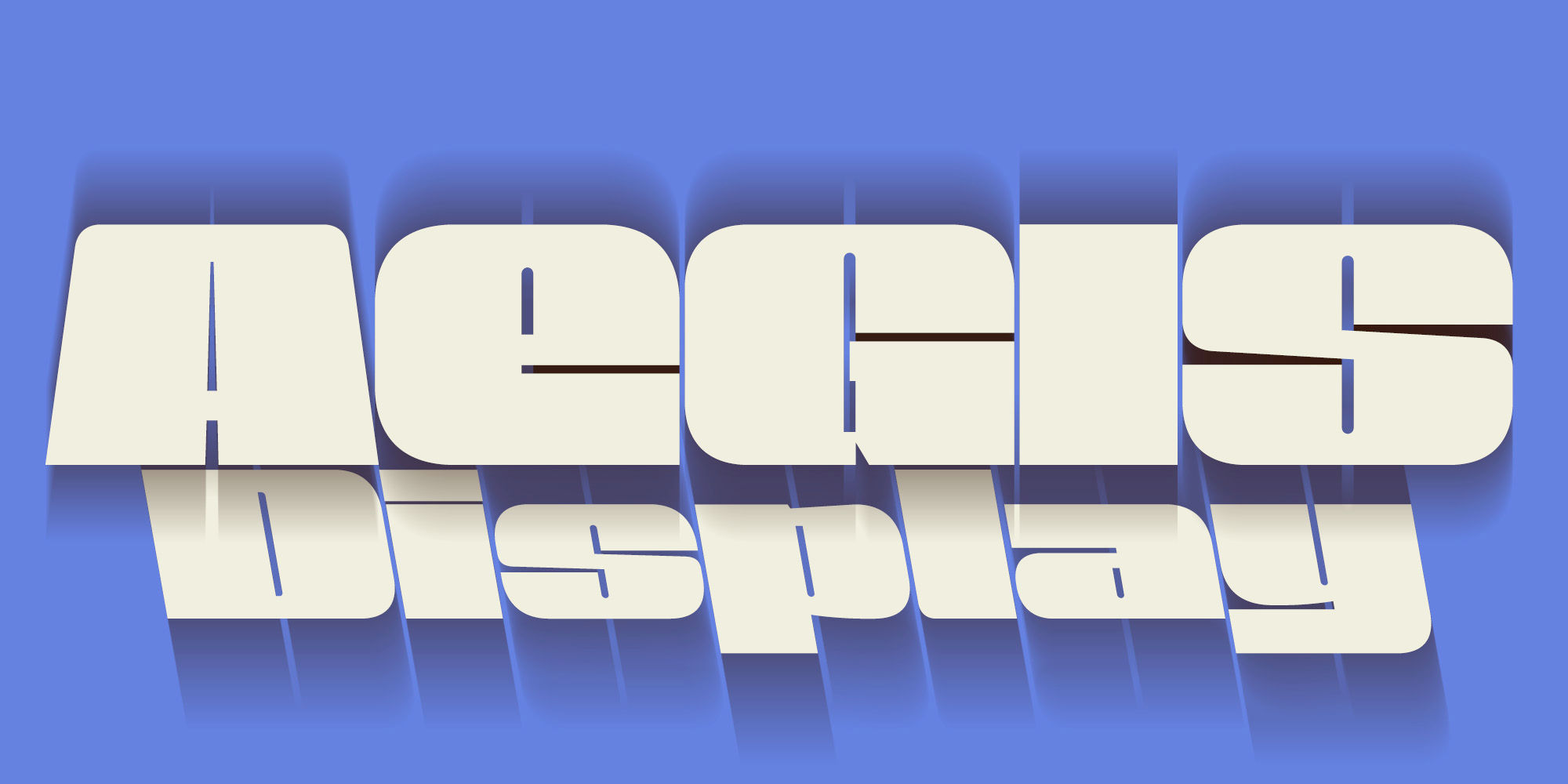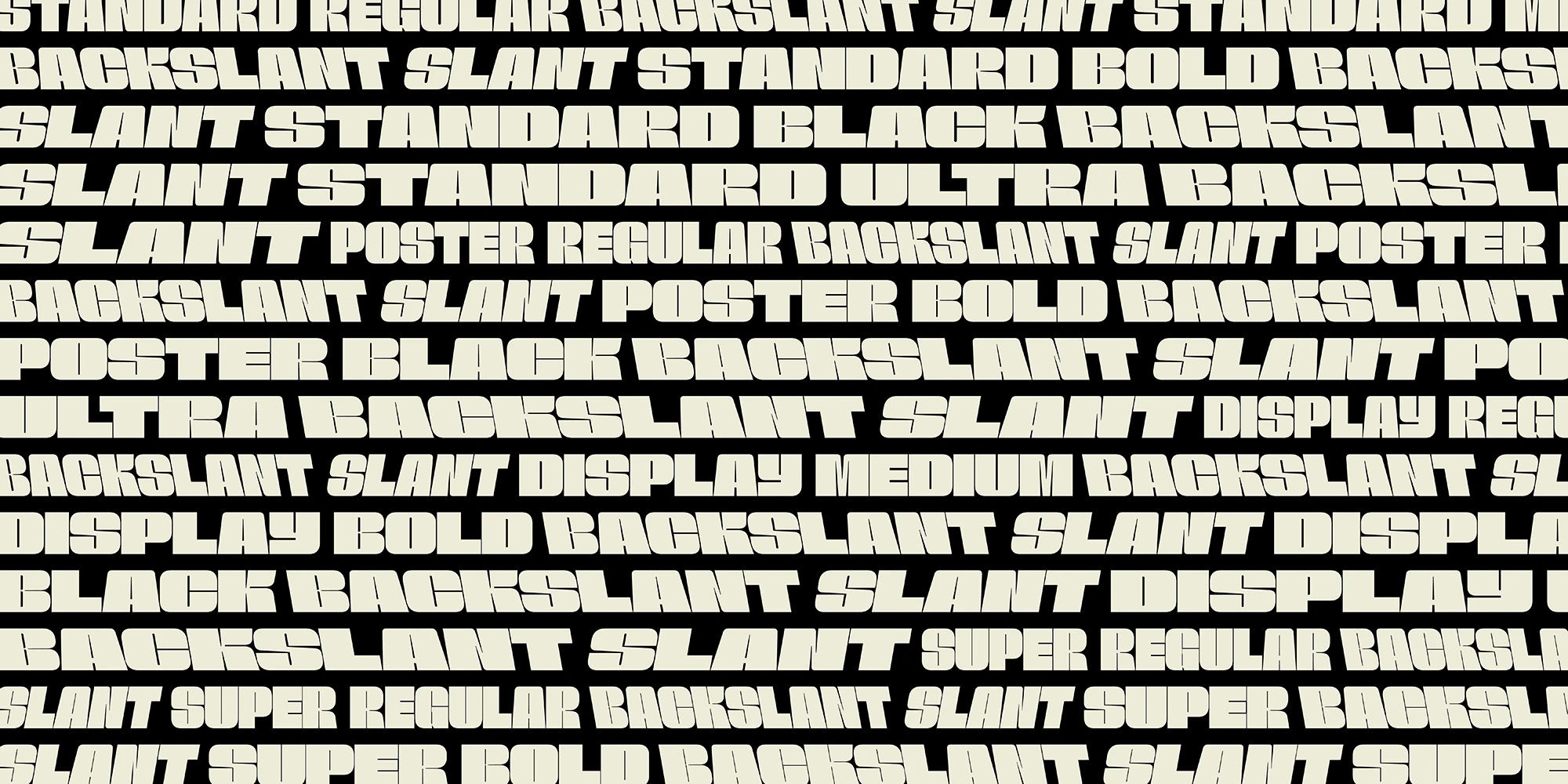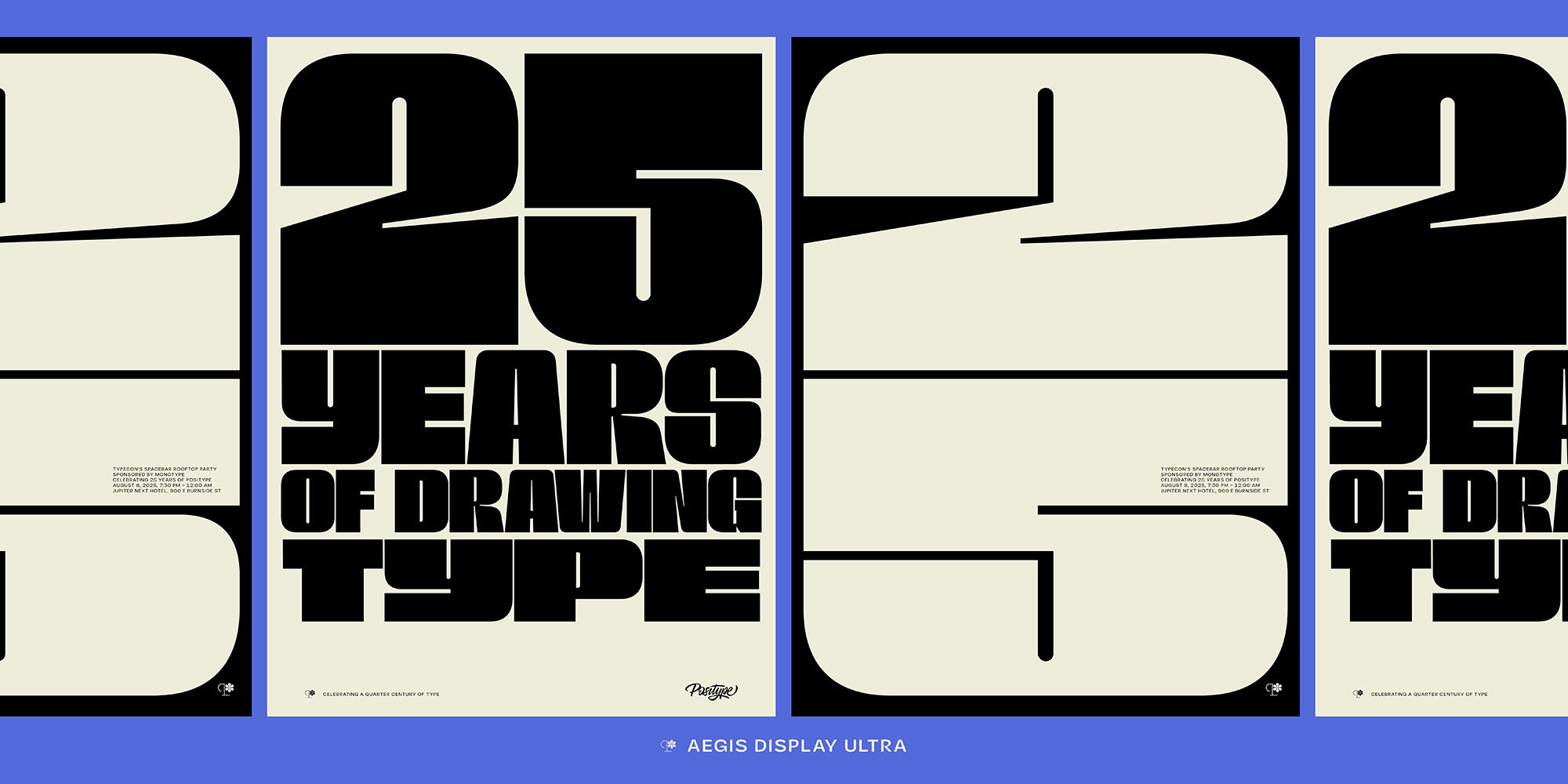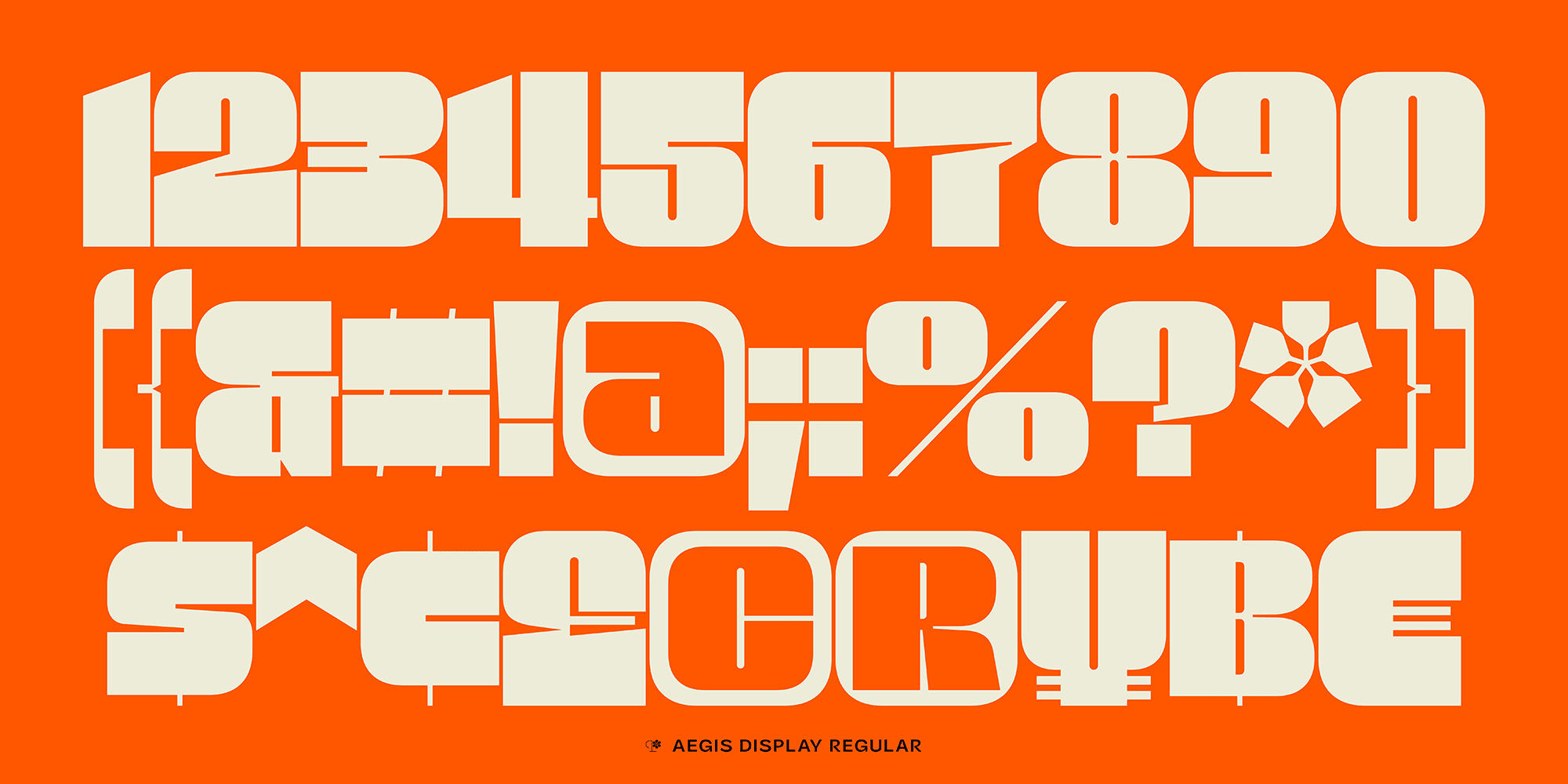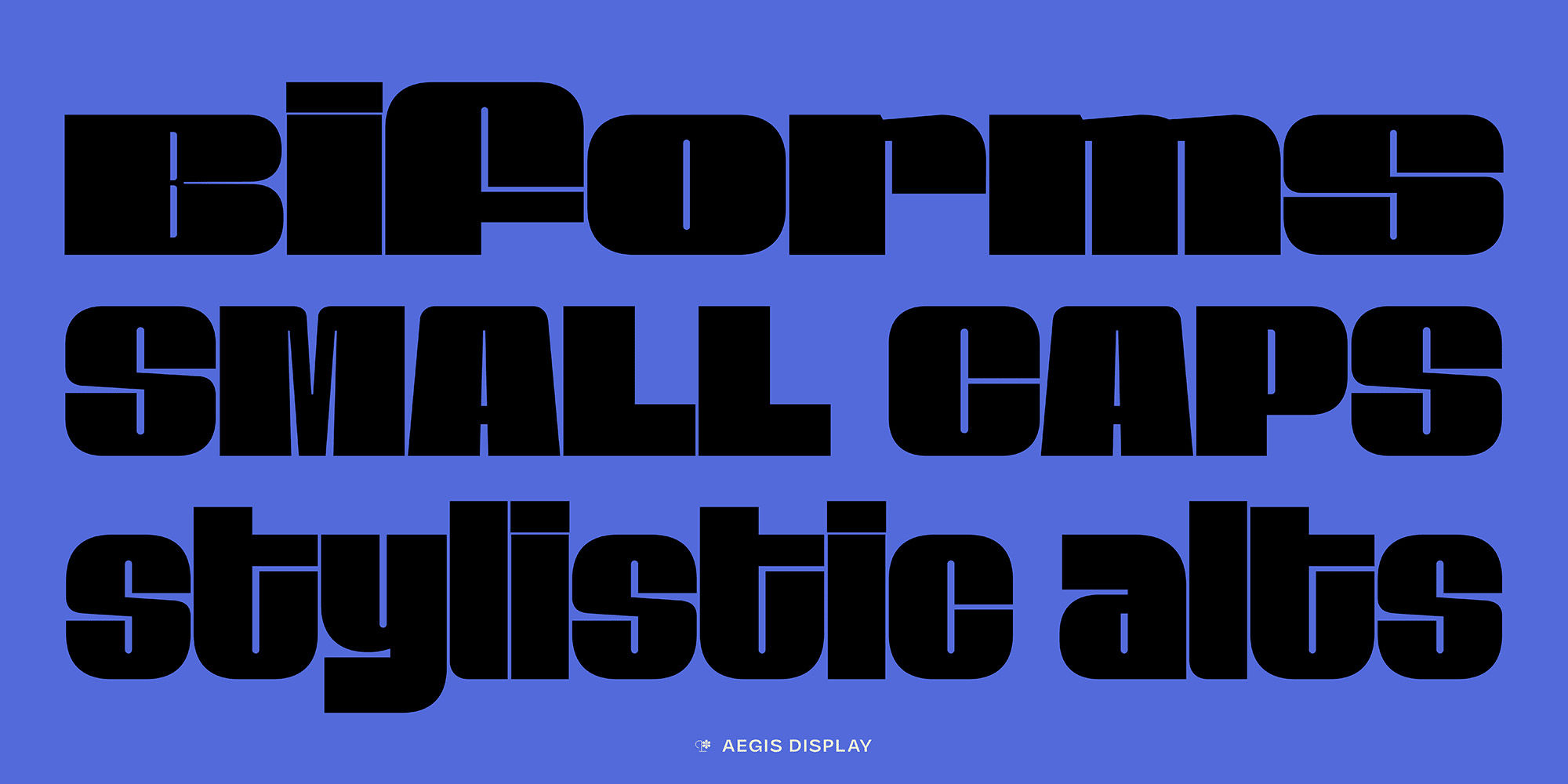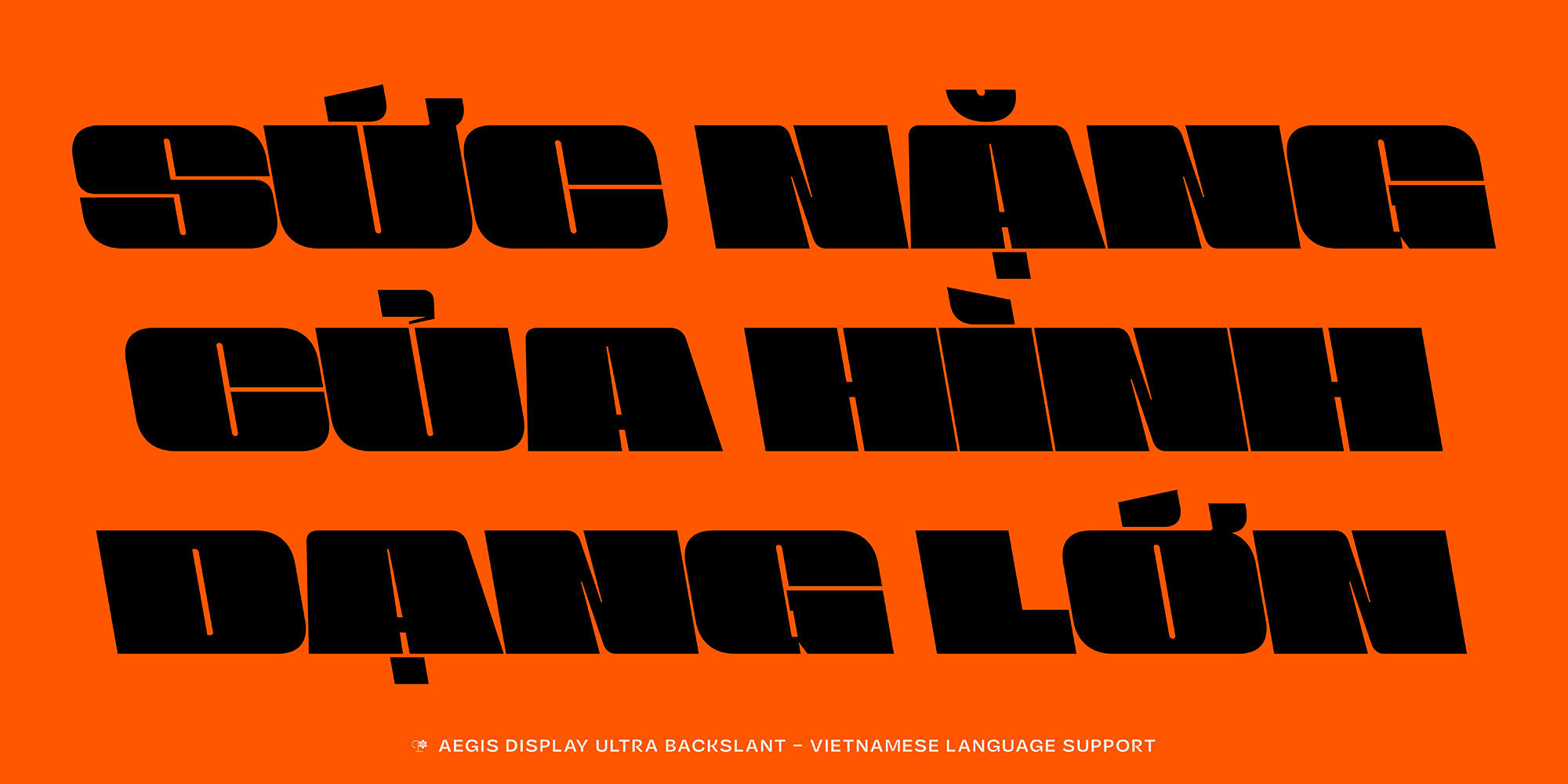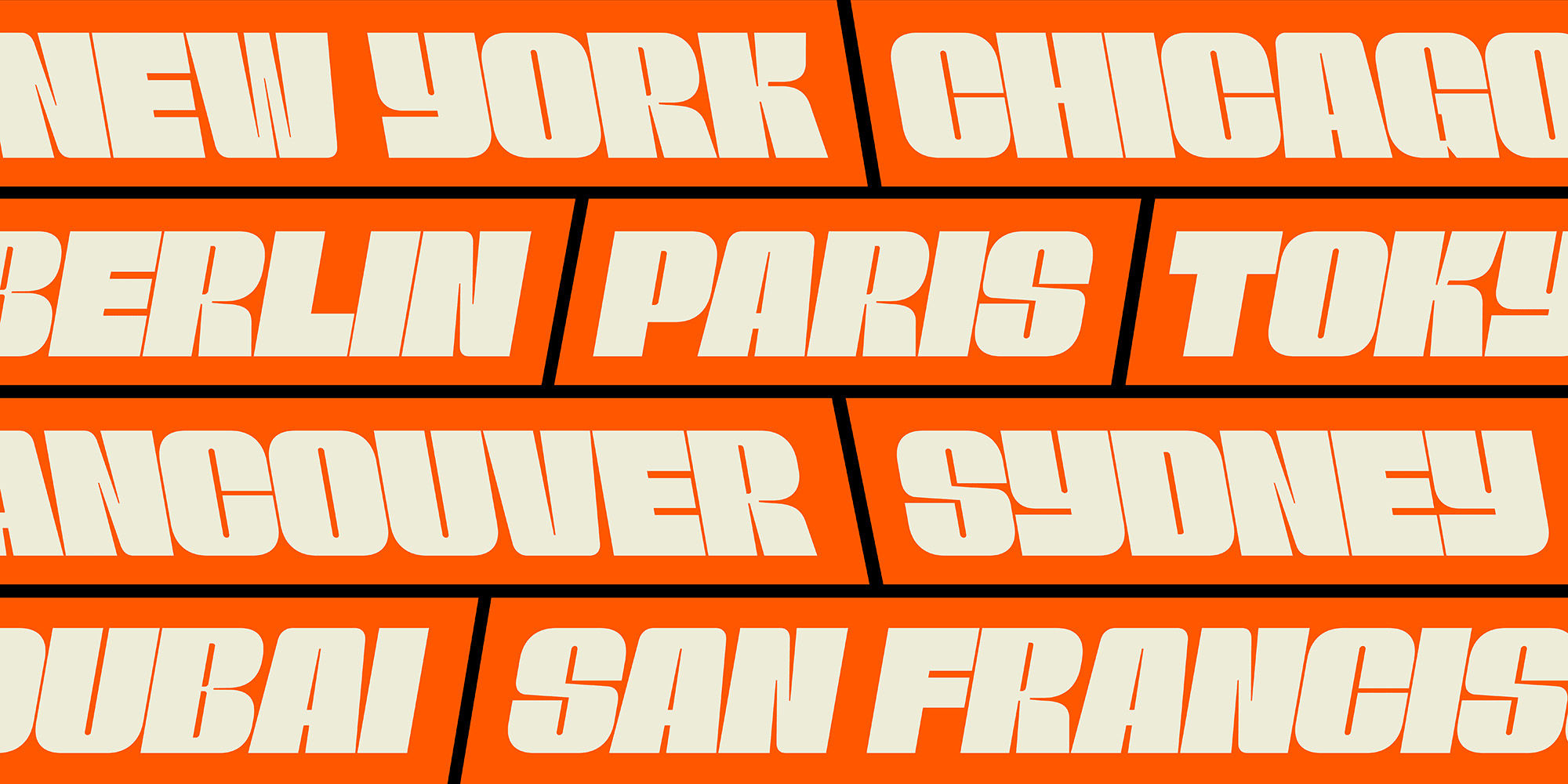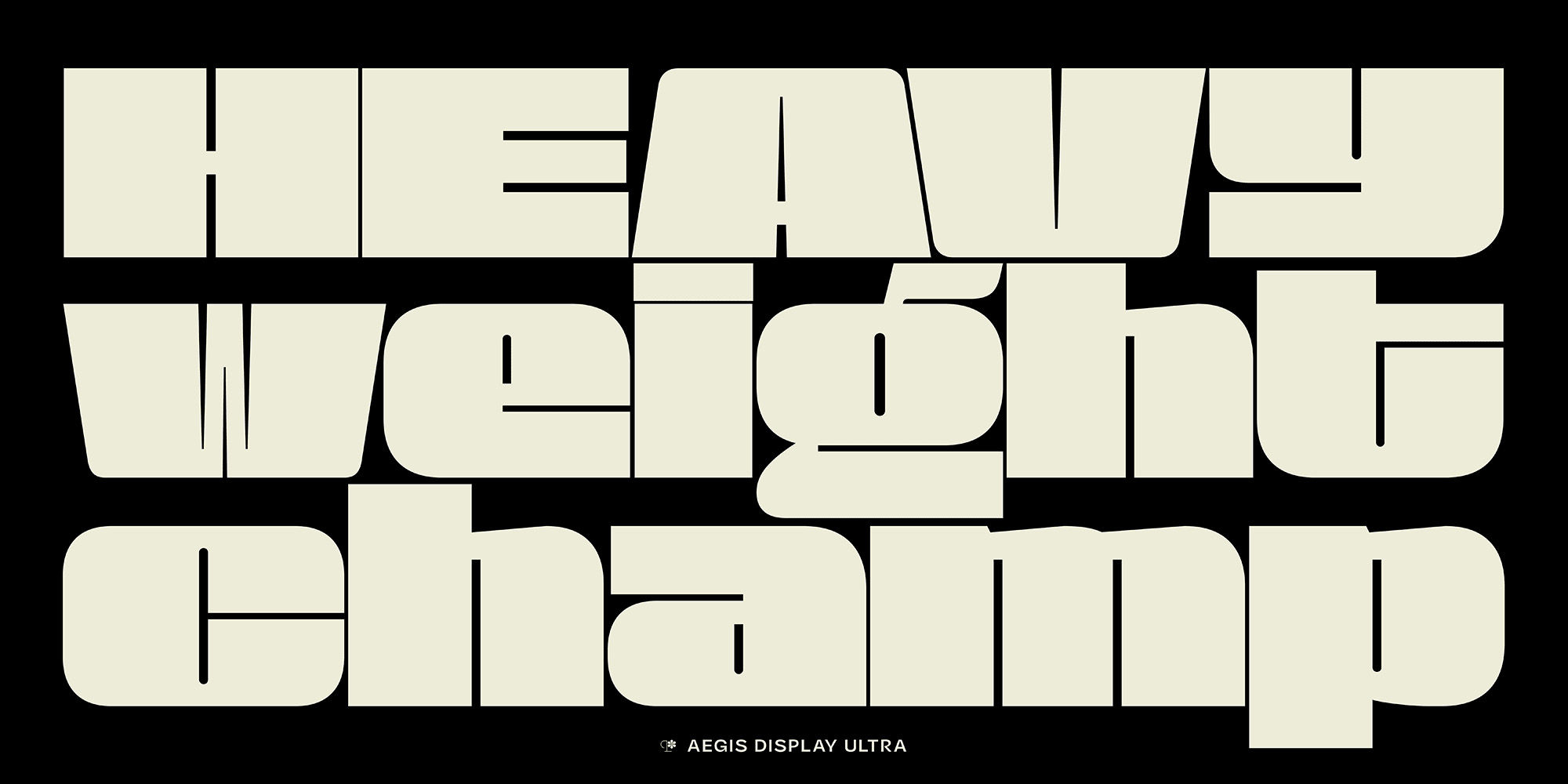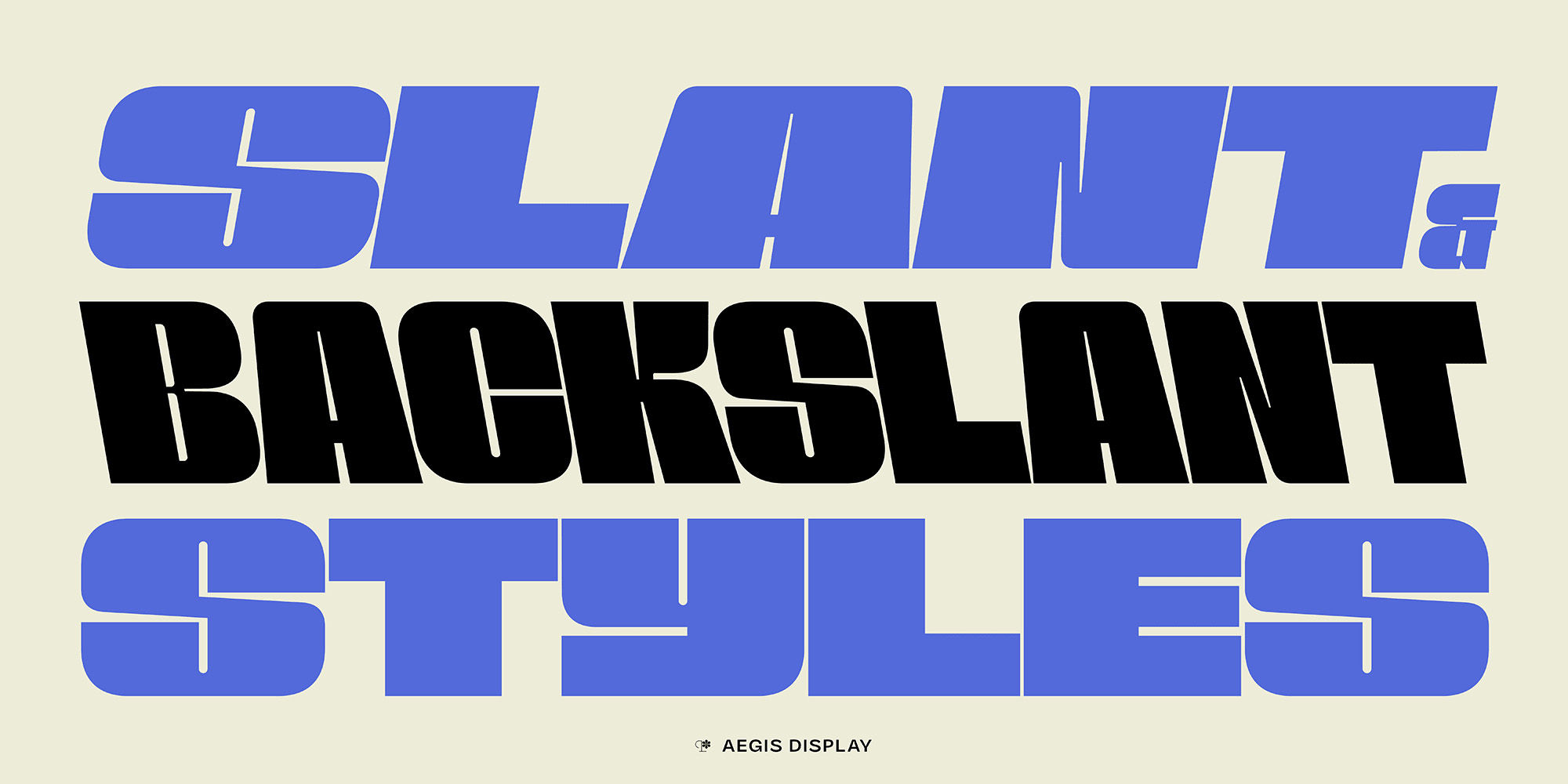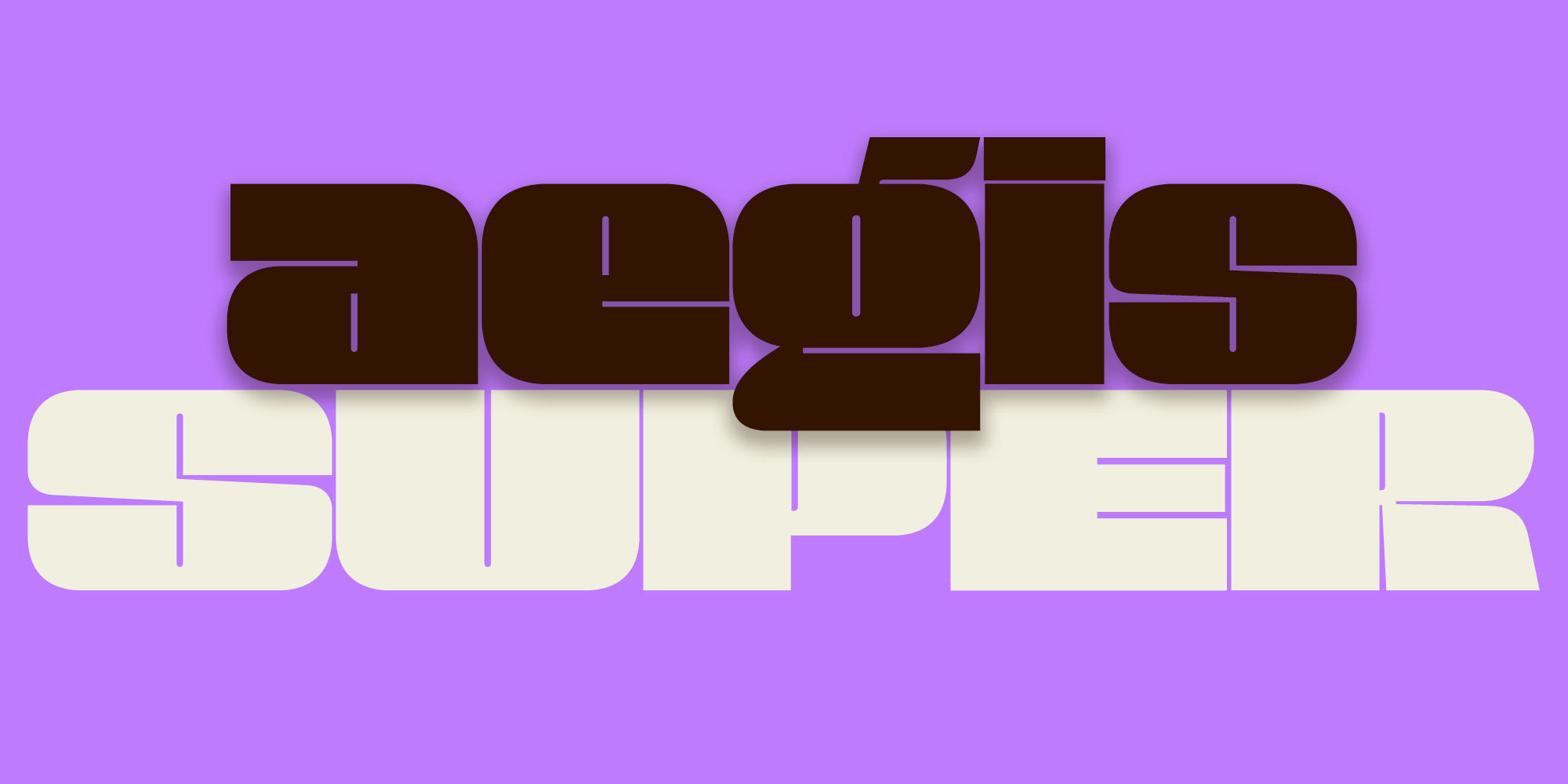
Aegis
Engineer:Potch Auacherdkul
fi fl
Standard Ligaturesliga
HeaG
Titling Alternatestitl
Small
Small Capssmcp
Fractionsfrac
x5689
Superscriptsups
H2389
Scientific Inferiorssinf
2nd 4th
Ordinalsordn
FJLST
Stylistic Set 1ss01
Aegis is a wide, heavy, large-scale type family designed to radiate strength and intention. Built across four optical sizes—Standard, Display, Poster, and Super—its forms tighten and its apertures narrow as the size increases, making Aegis exceptionally well-tuned for high-impact, oversized typography. With five weights and Upright, Slant, and Backslant styles, Aegis is a fully flexible system.
A rich set of features enhances its expressive power: stylistic alternates; small caps; Biforms; dual ‘g’ variants; and specialized cent numerals. Full Latin support, including Vietnamese, ensures broad usability.
Aegis also carries a deeper purpose. Created while the designer’s father battles dementia and Alzheimer’s, the typeface reflects the emotional weight shouldered by families facing these diseases. As part of that commitment, 50% of all profits are donated to the Alzheimer’s Association (alz.org).